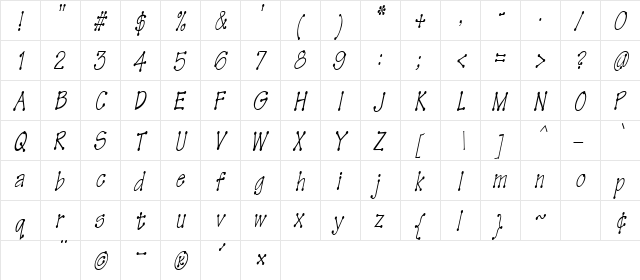
TinkerToyCondensed Oblique
Design Context for TinkerToyCondensed Typeface
TinkerToyCondensed takes a measured approach to typography — its balanced proportions and neutral character make it a reliable workhorse for both digital and print work. The slanted form adds forward momentum and visual energy. Its narrow stance lets it pack a punch even in space-constrained designs.